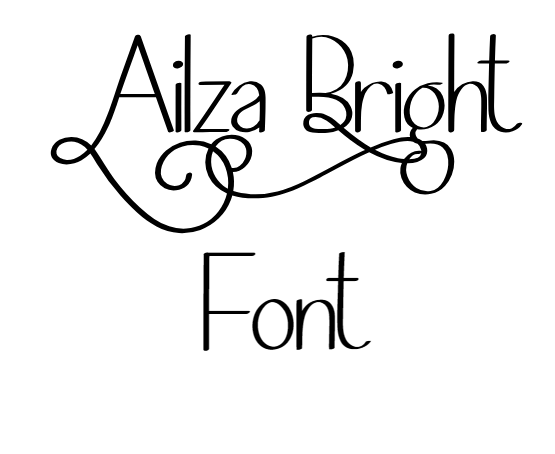
Ailza Bright
Ailza Bright is a calligraphy font designed by Widiyanti & Sarah Suci P and published by Edric Studio. Its flowing, pen-made letters give names and short phrases a personal, polished look. It's a free download, and you can try it with your own text in the preview above first.
- Extra characters: 29 copy-and-paste alternates (Private Use Area)
What You Can Type With Ailza Bright
Ailza Bright has the full alphabet in upper and lowercase. There are no numbers, so you'll need a second font for dates, prices or phone numbers. Punctuation is limited, so look at the character map if you need a specific symbol. Thanks to its accented letters, it also works for Spanish, French, Portuguese and Italian, not just English.
How to Use the Alternate Letters in Ailza Bright
Its 29 alternates are stored as separate characters, so you can copy them from Character Map on Windows or Font Book on a Mac and paste them anywhere, including Cricut Design Space and Canva. Its ligatures switch on by themselves in most design apps: certain letter pairs join into one specially drawn shape.
Where Ailza Bright Works Best
Designers usually reach for fonts like Ailza Bright when they're making wedding invitations, certificates and elegant quotes. Its lowercase letters are small compared to the capitals, so set it a size or two bigger than usual. Script fonts read best in short bursts, so keep it to names, titles and one-line quotes. Skip all caps: script capitals are drawn to start a word, not to fill one.